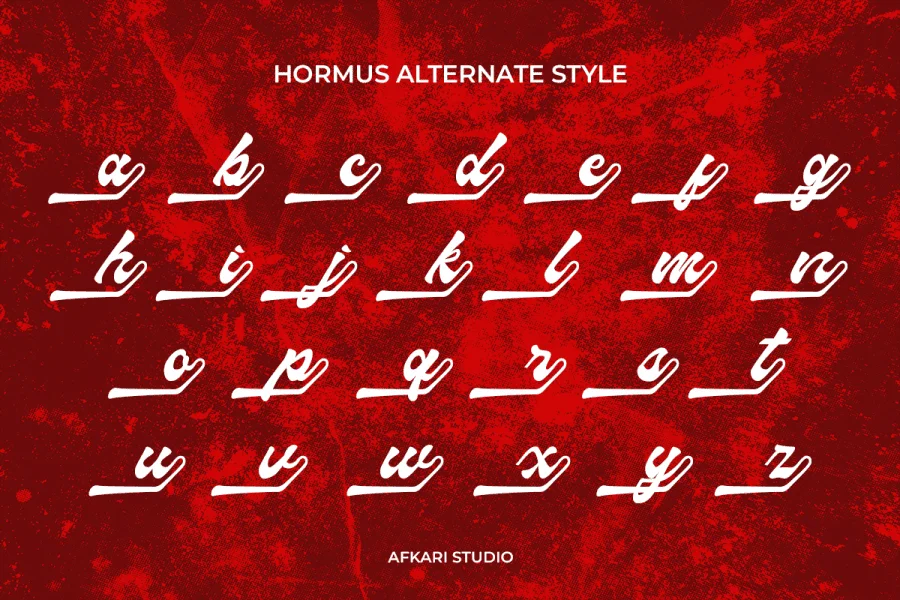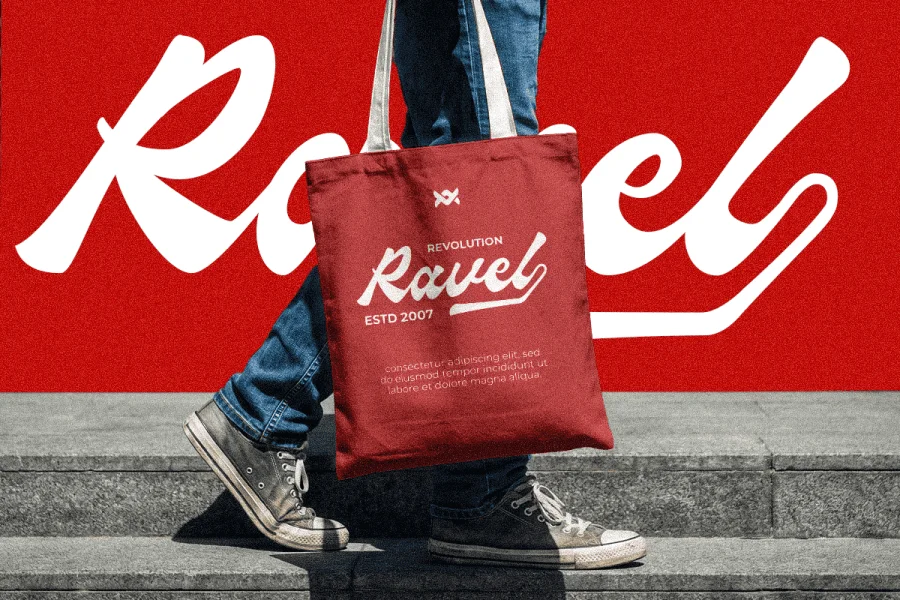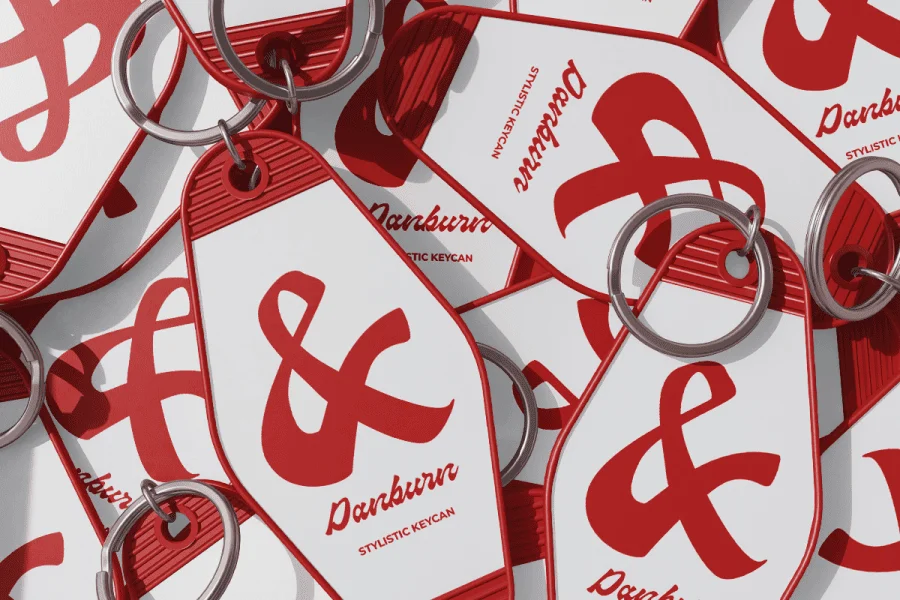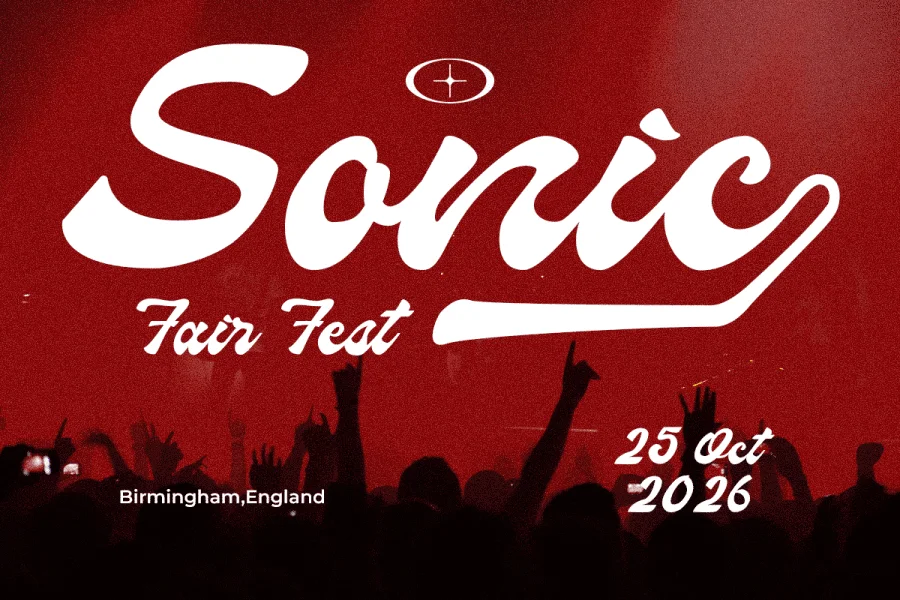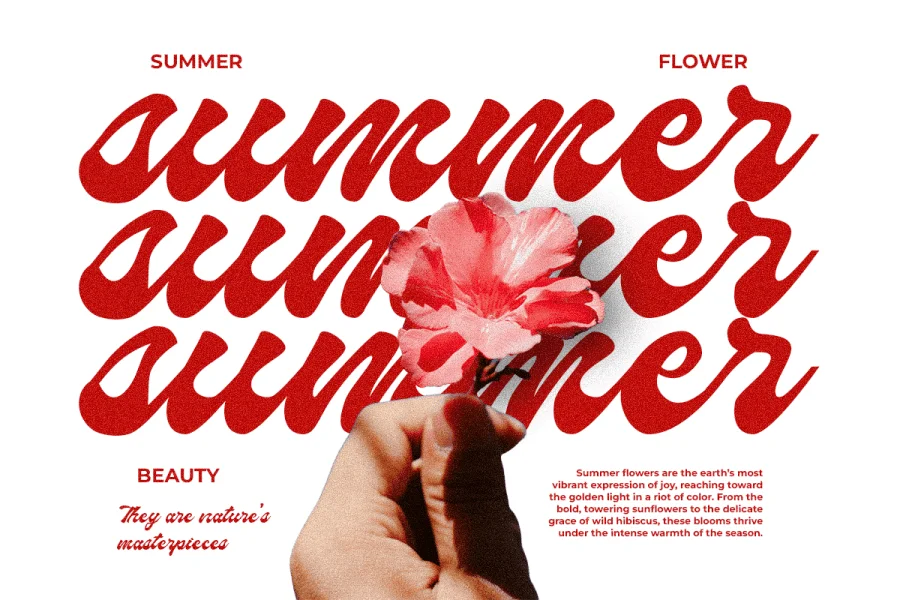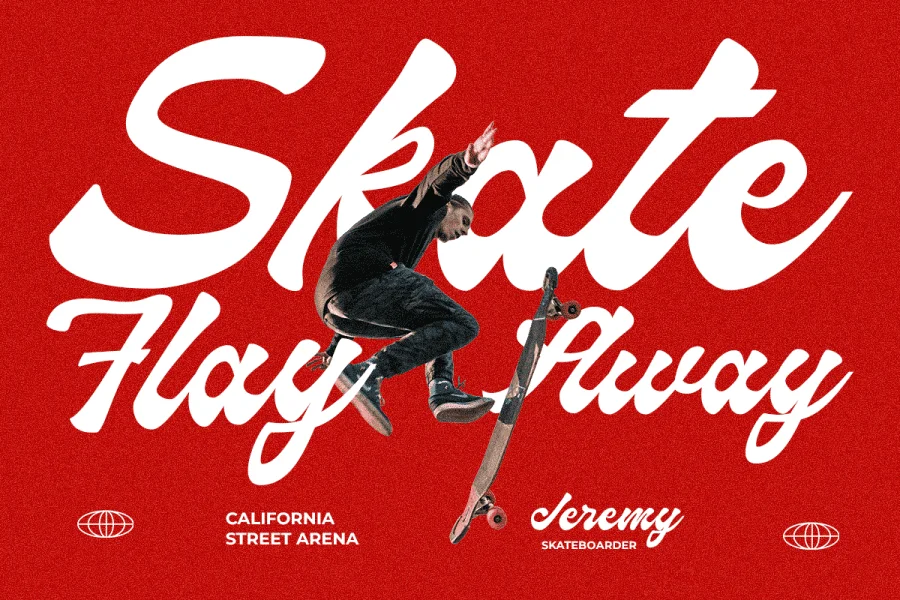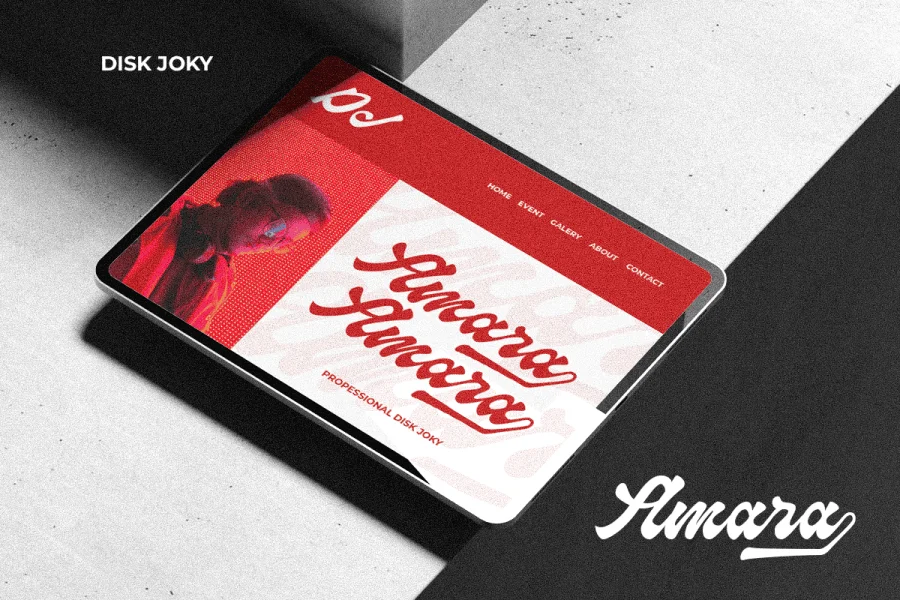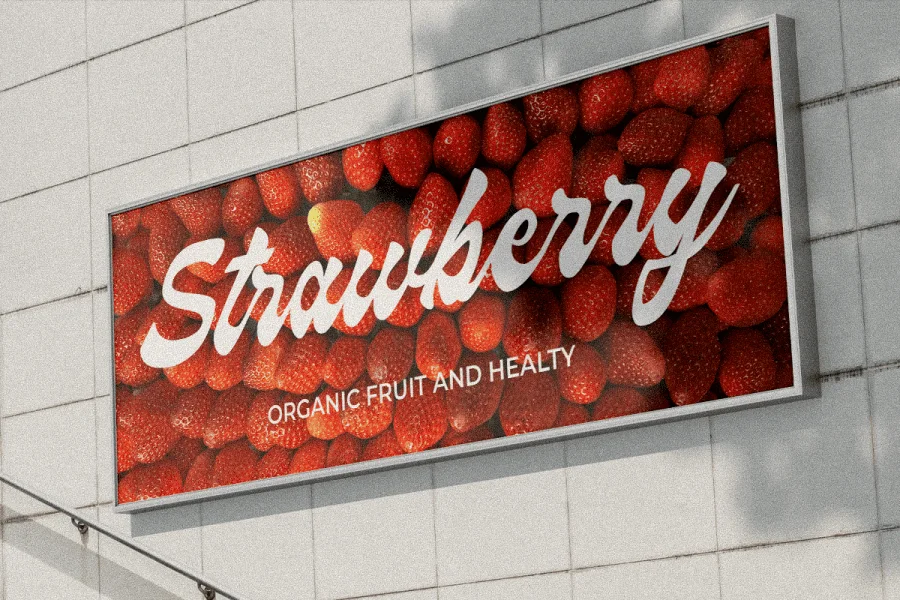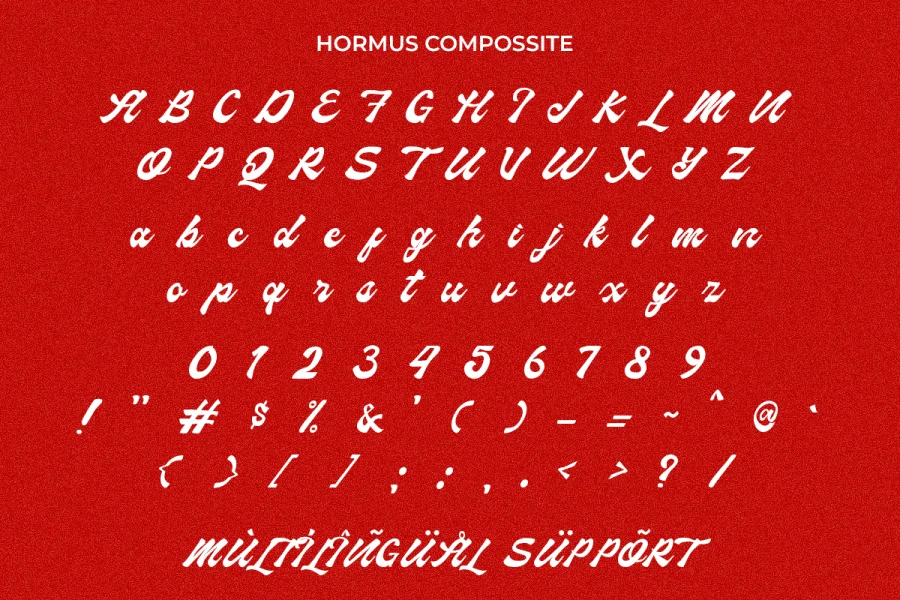
Hormuz - Bold Script Handwritten Streetwear Font
Hormuz is a bold script handwritten streetwear font crafted to deliver strong attitude and urban energy into your designs. Inspired by street culture, graffiti aesthetics, and modern fashion branding, this font features thick strokes, dynamic curves, and expressive letterforms that instantly grab attention.